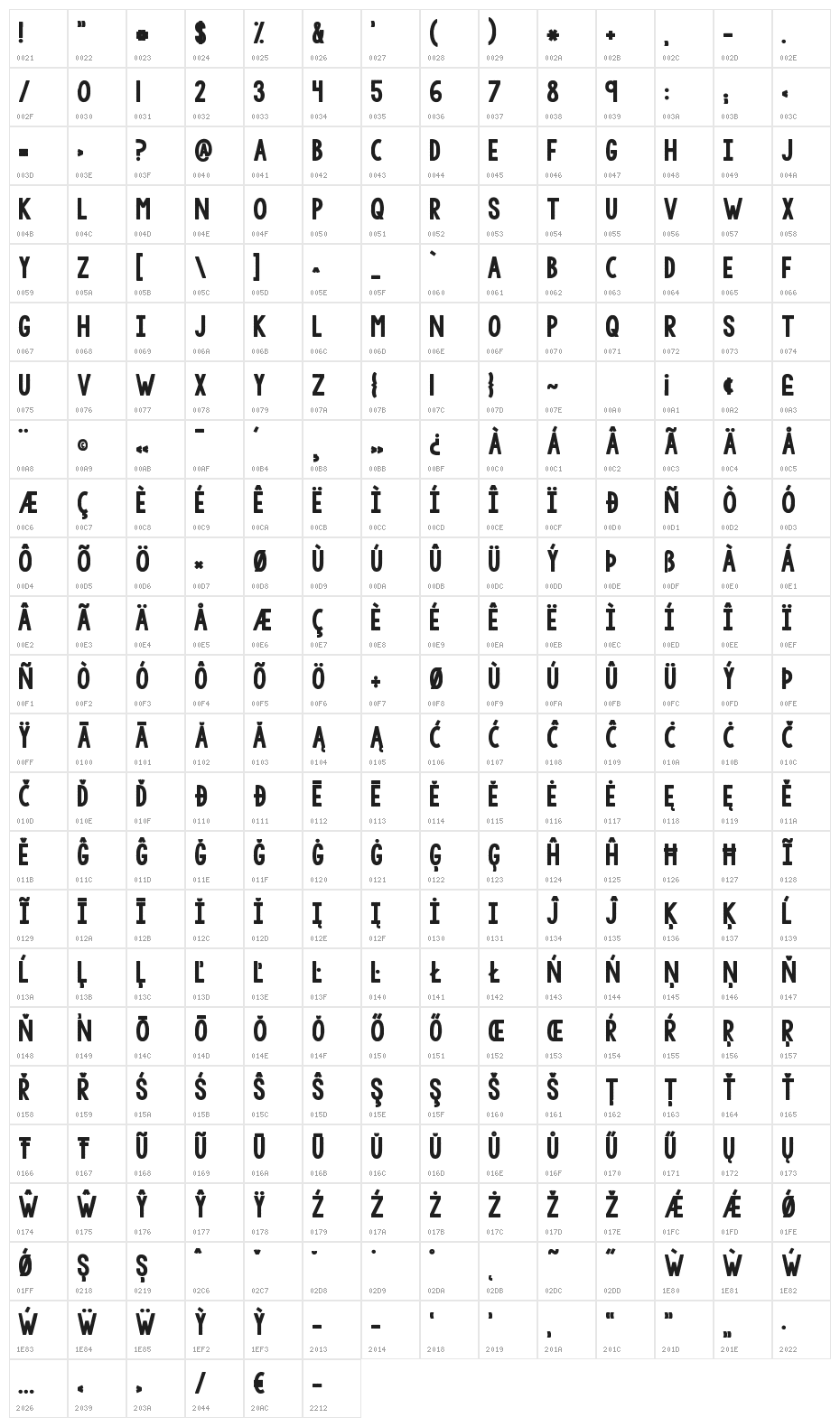
KG Tangled Up In You 2 Font
KG Tangled Up In You 2 Description
This font features a bold and playful style with a slightly irregular and hand-drawn appearance. The uppercase and lowercase letters maintain a consistent weight, giving it a cohesive look. The characters have a rounded, friendly feel, with a slight vintage touch that adds charm. The numbers and special characters are designed to match the overall aesthetic, making it versatile for various design needs. Its boldness ensures visibility and impact, while the unique character shapes add personality.
| Overall Style | Playful, Vintage |
| Proposed Projects | Ideal for children's books, playful branding, posters, and creative projects that require a friendly and approachable typeface. |